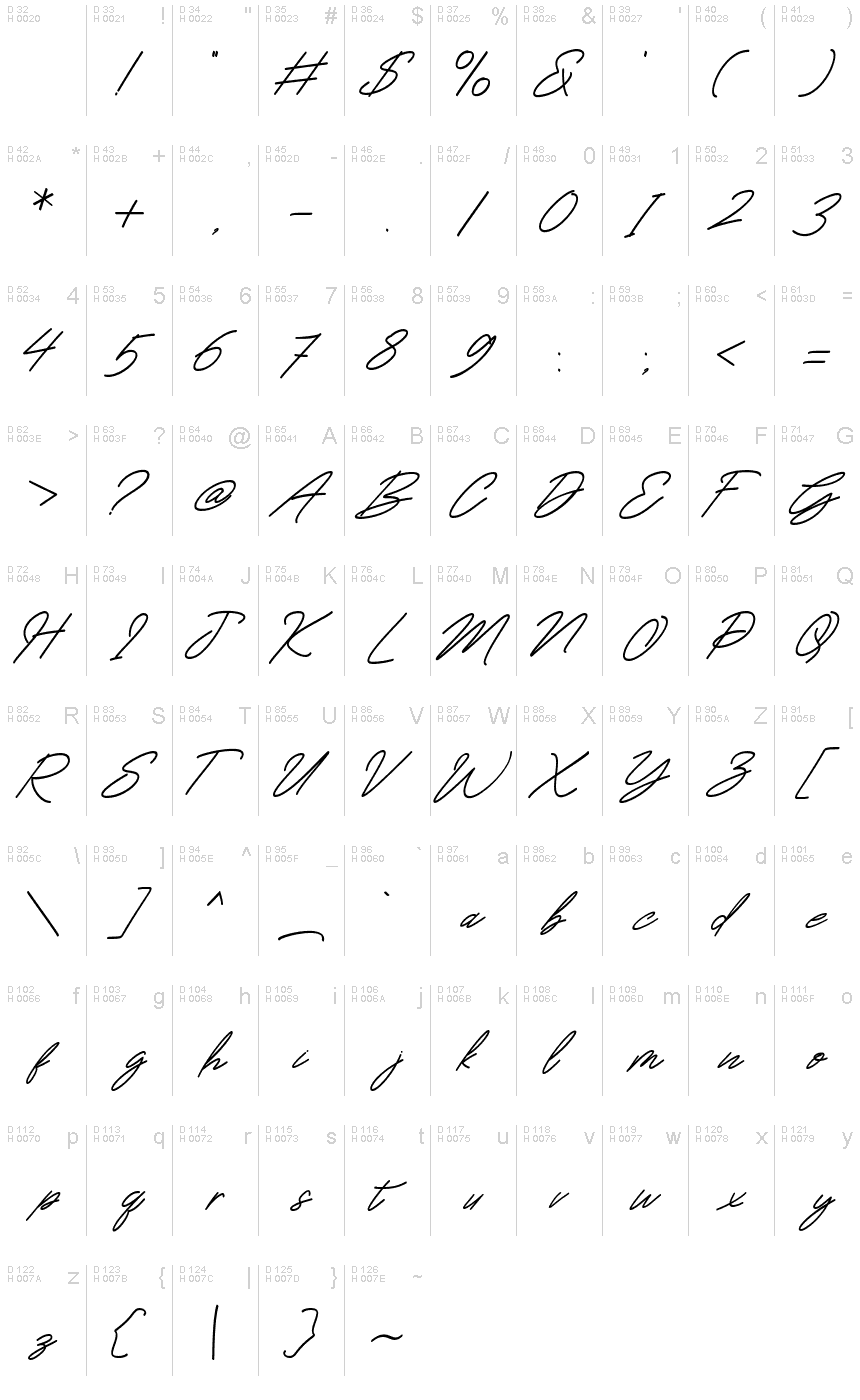
Christmas
Christmas is a light, handwritten script font designed by WinType / Winarko. It's perfect for adding a festive touch to your holiday projects such as greeting cards, invitations, and decorations.